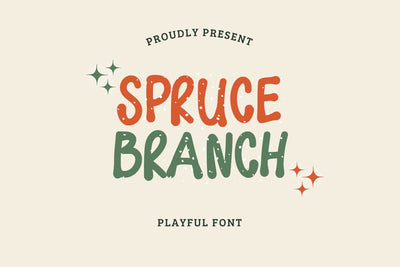
Spruce Branch - Playful Font
Hi, Introducing Spruce Branch - Playful Font
Playful font with a very cute and fun style. This font is cool for quotes, t-shirts, tote bags, greeting cards, mugs, decorations, pillows, etc